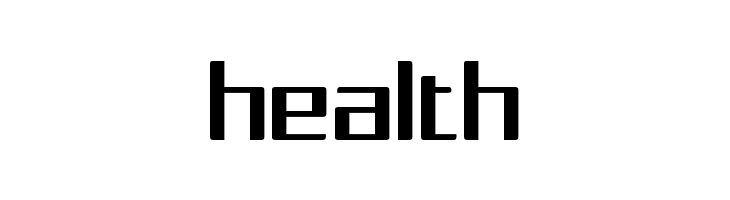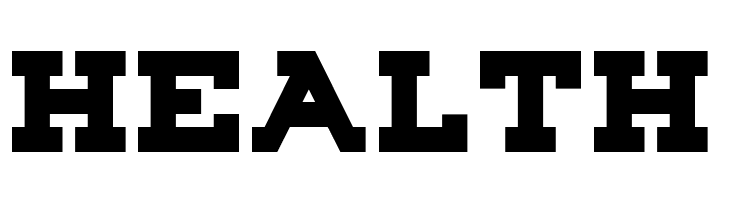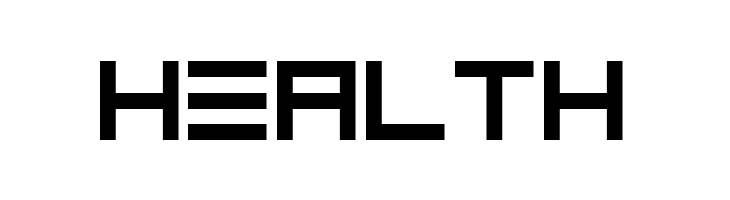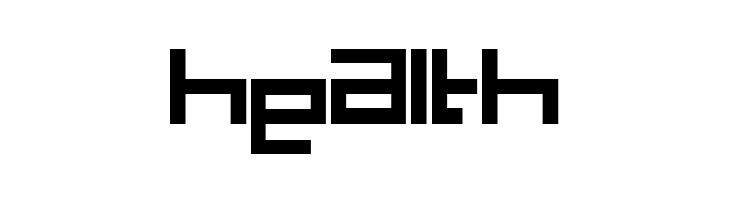
A modern, geometric font with clean lines and uniform width.
A geometric, modern font with consistent stroke width and a digital aesthetic.
A bold, geometric font with strong, angular lines and a robust, industrial feel.
A pixelated, blocky font inspired by retro digital displays.
A modern, geometric font with clean lines and a structured, futuristic appearance.
A geometric, block-like font with a modern, digital aesthetic.